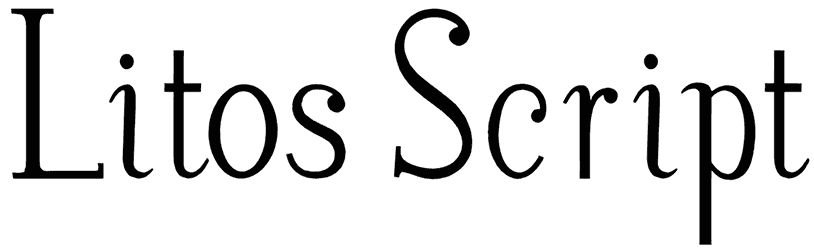
Litos Script Font
Litos Script is an incredible unique serif font that is masterfully designed to be your practical assistant in branding projects, product packaging, social media posts, the user interface of applications, and web pages.
The outstanding point about this typeface is the fact that it comes with four distinctive styles and widens your selection range. With the help of its majestic style, it carries a sense of professionalism, softness, dynamic, and precision.
Designed by: Decio Guanabarino